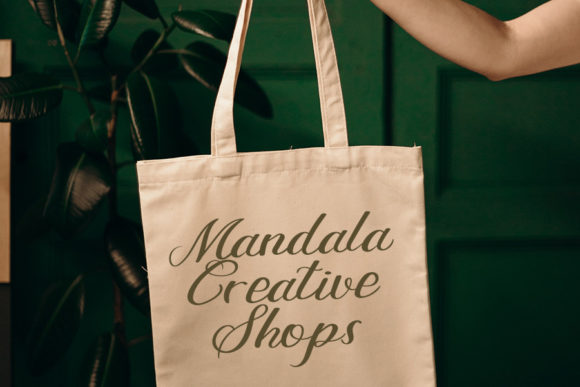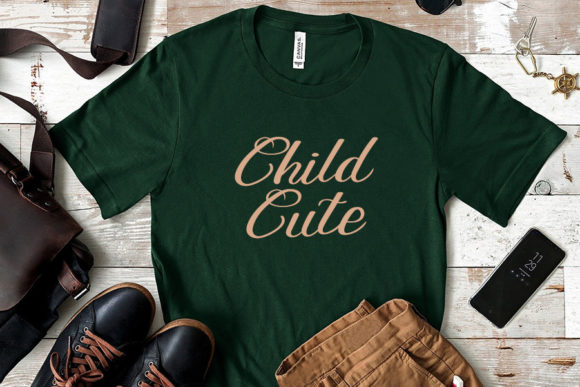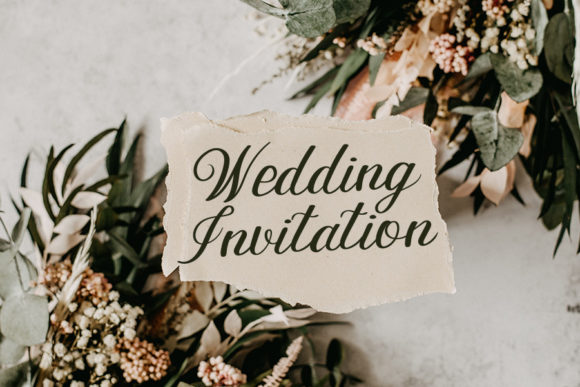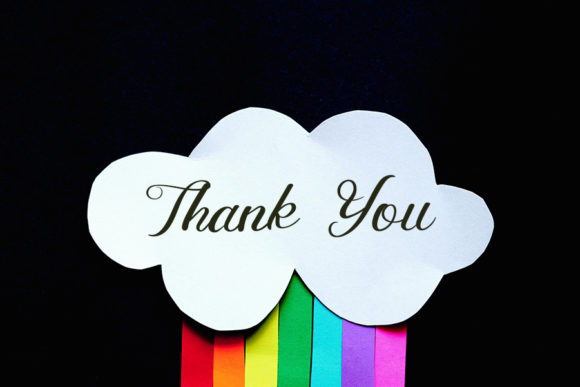
Introducing Happy Mandala: The Epitome of Elegance in Typography
In the realm of typography, few fonts manage to convey the perfect blend of sophistication, elegance, and chicness. Happy Mandala, a refined script font, stands out as a beacon of luxury and poise. Its intricate design, replete with stylish alternates and ligatures, positions it as the ideal choice for any project that demands a touch of class.
The Essence of Happy Mandala
Happy Mandala is more than just a font; it’s an experience. It brings to the table a level of refinement that is hard to find in the digital age. This script font is meticulously crafted to ensure that every letter, every ligature, and every alternate form exudes a sense of elegance and sophistication. Whether you’re working on a branding project, a wedding invitation, or a high-end product catalog, Happy Mandala promises to elevate your design to unprecedented heights.
Key Features of Happy Mandala
- Stylish Alternates and Ligatures: One of the standout features of Happy Mandala is its extensive range of stylish alternates and ligatures. These elements allow designers to add a personal touch to their work, making each project unique and visually appealing.
- Refined and Chic Design: The font’s design is both refined and chic, making it versatile enough to be used in various contexts, from luxury branding to elegant stationery.
- Elegance and Sophistication: Happy Mandala embodies elegance and sophistication, making it the perfect choice for projects that require a high level of formality and class.
Applications of Happy Mandala
The versatility of Happy Mandala makes it suitable for a wide array of applications. Here are a few examples:
- Branding and Logo Design: For businesses aiming to establish a luxurious brand image, Happy Mandala can be a valuable asset. Its elegant and sophisticated appearance can help in creating a lasting impression on clients and customers.
- Wedding and Event Stationery: The font’s chic and refined nature makes it perfect for wedding invitations, event programs, and other stationery that requires a touch of elegance.
- Packaging and Product Design: For high-end products, packaging plays a crucial role in brand perception. Happy Mandala can be used to create luxurious packaging designs that stand out on store shelves.
- Digital Media: Beyond print, Happy Mandala can also be used in digital media, such as website headers, social media graphics, and digital advertisements, to add a touch of sophistication.
Why Choose Happy Mandala?
In a market flooded with countless fonts, Happy Mandala distinguishes itself through its unique blend of elegance, sophistication, and versatility. Here are a few reasons why designers and crafters should consider Happy Mandala for their projects:
- Unique and Memorable: The font’s distinctive style ensures that your project stands out and remains memorable to your audience.
- Time-Saving: With its extensive range of alternates and ligatures, Happy Mandala offers flexibility without the need for extensive custom design work.
- Easy to Use: Despite its intricate design, Happy Mandala is easy to use, even for those with basic knowledge of typography and font usage.
Happy Mandala is a chic, refined script font that emanates sophistication and elegance. Its stylish alternates and ligatures make this font the perfect match for any project that demands a high level of class and poise. Whether you’re a designer working on a luxury brand campaign or a crafter creating bespoke wedding stationery, Happy Mandala is sure to exceed your expectations. With its versatility, elegance, and ease of use, Happy Mandala is poised to become a favorite among designers and crafters alike.